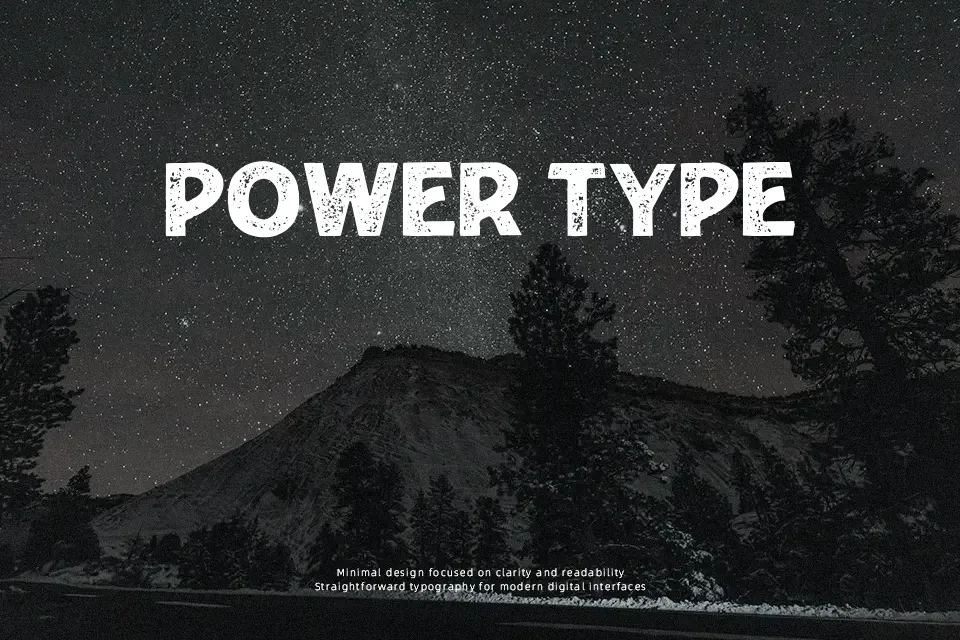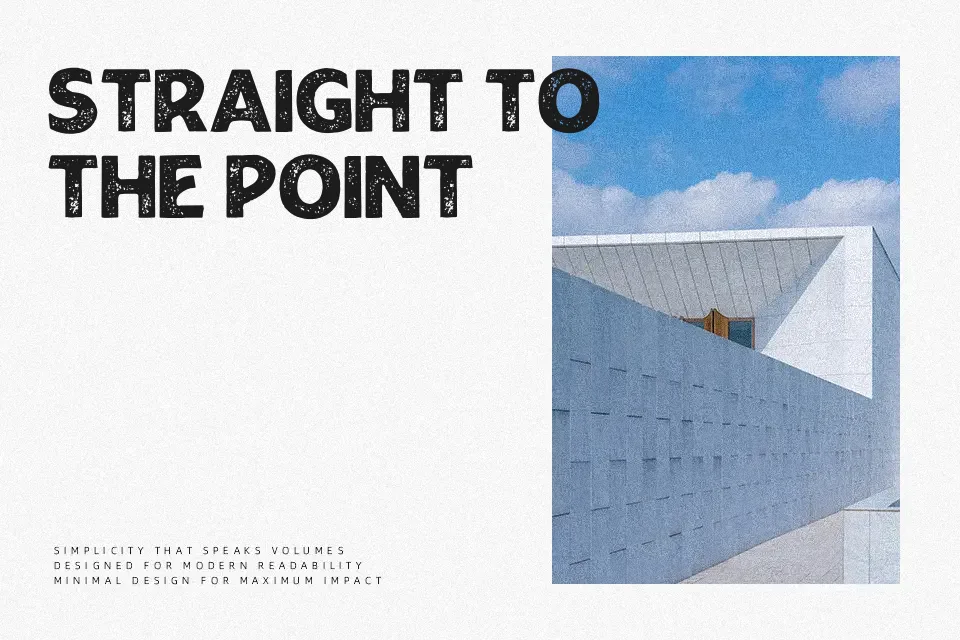
Rougant Rough Font
Designed by Måns Grebäck
Rougant Rough Font is constructed with bold, slightly condensed letterforms that showcase a heavily distressed, textured finish. The solid strokes maintain a consistent thickness, while the tight spacing enhances the impactful, rugged presence of the typeface. This eroded sans-serif design carries a distinct vintage energy, making it an exceptional fit for retro packaging, apparel graphics, and energetic poster layouts. The textured details help maintain a powerful visual rhythm in large headlines. However, the eroded forms reduce continuous reading comfort, meaning the design is less suitable for long paragraphs. Smaller interface labels may also lose clarity as the weathered edges visually blend into the overall structure.
vintage product packaging
apparel graphics
retro festival posters
rugged brand logos
Perfect for branding, headline, and logo, with a bold and condensed style.